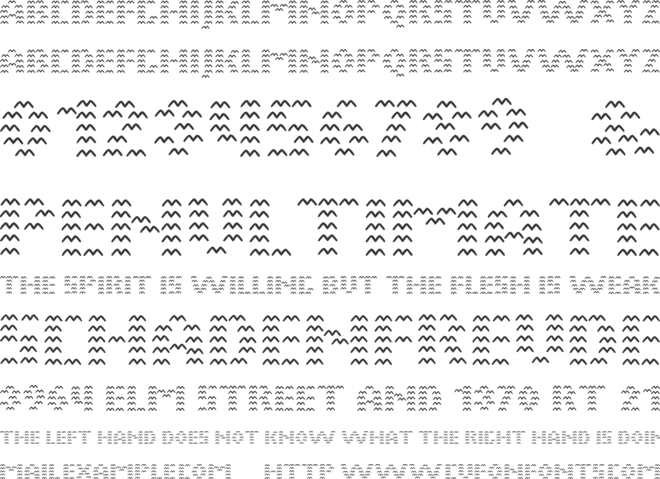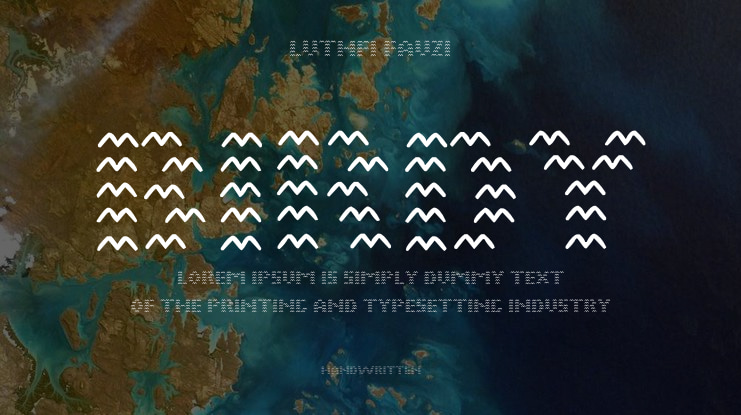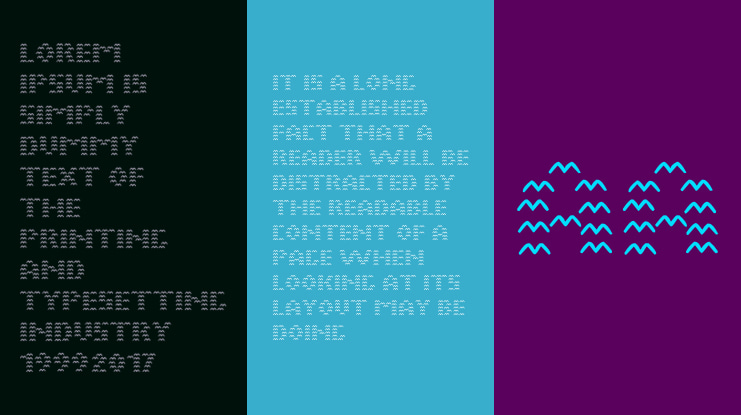
Birdy Font
Birdy is a typographic illusion that plays with perception and distance. Composed entirely of flying bird silhouettes arranged in a tight grid, each letter emerges only when viewed from afar or with squinted eyes. The result is a visual pun, a word built from the very thing it spells. Neither purely image nor type, Birdy sits at the intersection of pattern, form, and meaning.